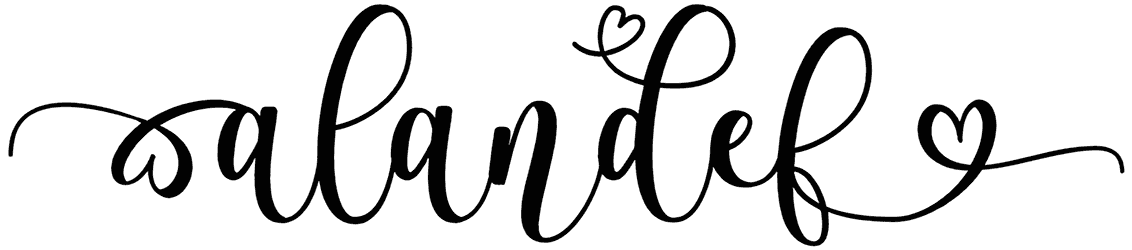
Would you like to give your designs an unexpected twist? So breathe life into your projects with Alandef. This elegant script font can not only be used for wedding invitations and love notes but is also great for various design projects, such as packaging.
This heart font is specially customized and suitable for writing long texts. But maybe it makes reading the text a bit difficult and time-consuming.